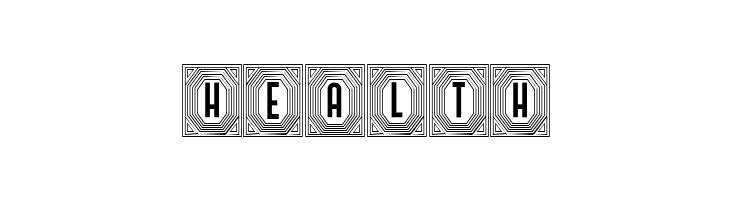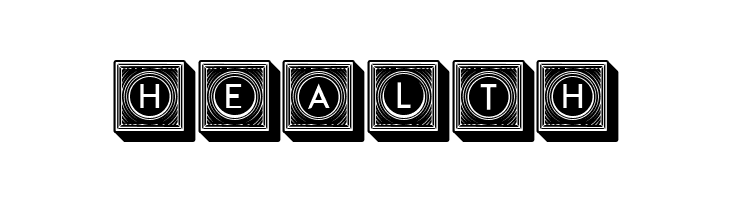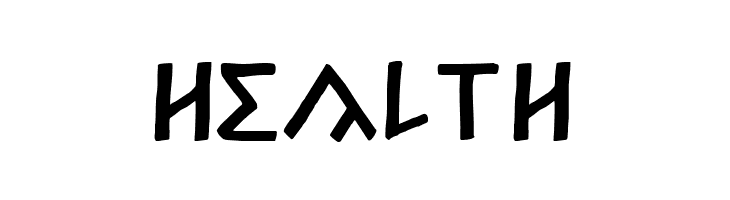
A bold, angular font with a playful and dynamic style.
A bold, geometric font with rounded edges and a modern style.
( Font by Jayvee D. Enaguas - grandchaos9000.deviantart.com )
A bold, italicized font with a dynamic and modern style.
( Font by Jayvee D. Enaguas - grandchaos9000.deviantart.com )
A bold, blocky font with a strong, modern presence.
A bold, decorative font with a unique dotted border around each character.
A playful, pictogram-based decorative font with hand-drawn, cartoon-like icons.
( Fonts by Tobias Sommer - mentalmenthol.blogspot.com )
A modern, rounded font with a sleek, condensed style.